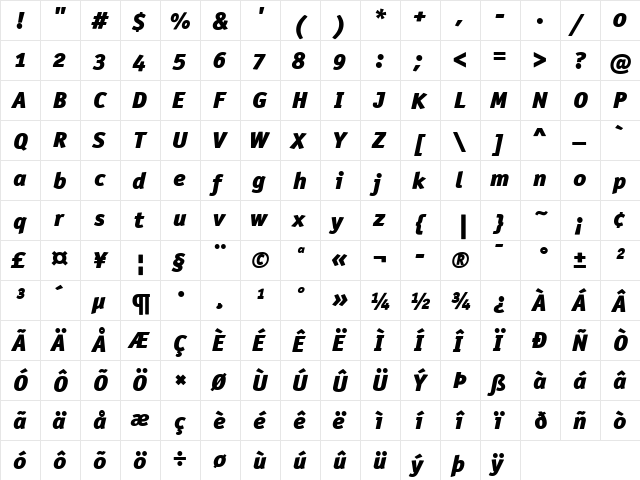
OfficinaSanITC Black Italic
| Foundry | \(c\) International Typeface Corporation and by Erik Spiekermann, Ole Schaefer |
Design Context for OfficinaSanITC Typeface
OfficinaSanITC takes a measured approach to typography — its balanced proportions and neutral character make it a reliable workhorse for both digital and print work. Its italic angle brings a sense of urgency and motion to the letterforms.
Pro Tip: Try OfficinaSanITC for annotation and caption copy alongside an upright companion — the contrast in angle creates a dynamic but ordered typographic system.